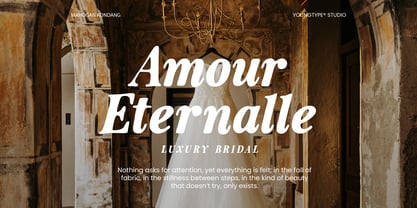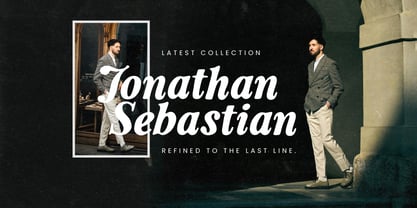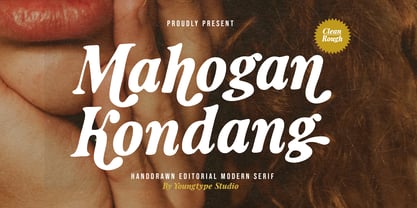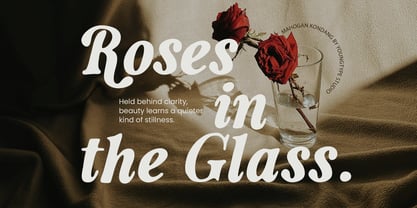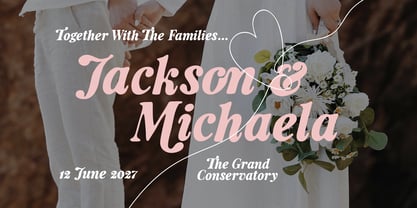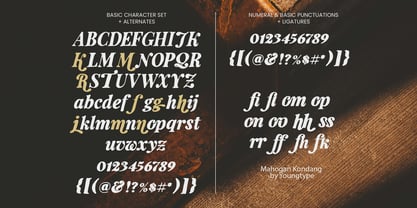
Mahogan Kondang
by Youngtype
The Mahogan Kondang Font Family was designed by Naufal Paramata and published by Youngtype. Mahogan Kondang contains 2 styles and family package options. More about this family
Mahogan Kondang is a hand-drawn modern serif typeface with a soft, elegant, and slightly vintage feel. Key characteristics: Rounded, smooth serifs that give a friendly and refined look Moderate stroke contrast, making it stylish yet still readable Subtle calligraphic curves, adding a natural, handcrafted touch Clean and rough versions, where the rough style adds a textured, organic feel Overall impression: Elegant, warm, and expressive—perfect for editorial design, branding, logos, and packaging that need a modern yet artistic and human touch. Contains full set : Uppercase Lowercase Ligatures Alternates Punctuation number multilingual support. Thank you
Designers: Naufal Paramata
Foundry: Youngtype